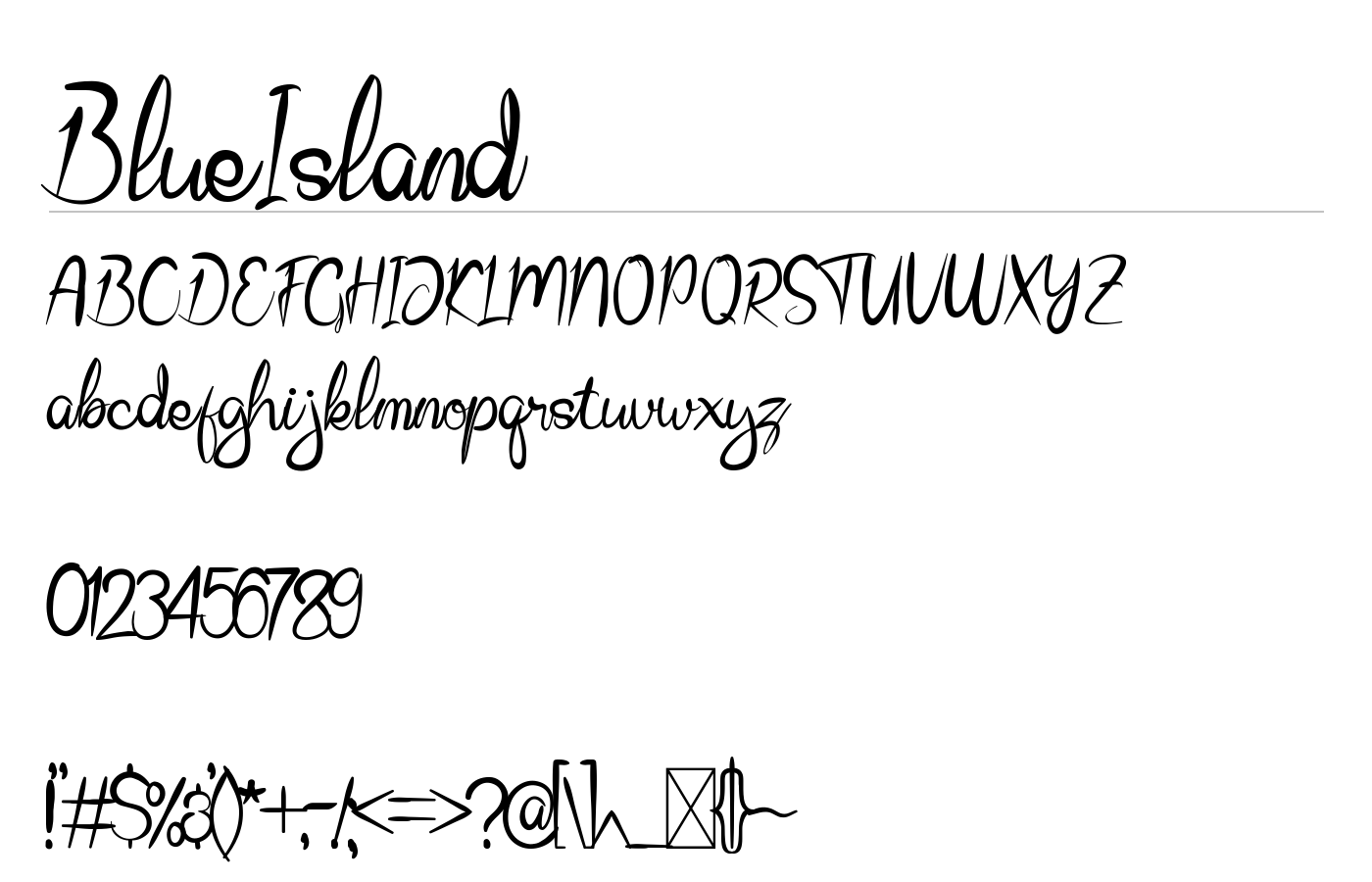
BlueIsland is a playful and artistic script font with a tall x-height and a handwritten feel that combines elegance with casual charm. Its slender, slightly irregular strokes and unique letterforms give it a distinctive, expressive personality perfect for creative branding, invitations, and headlines where a personal touch is desired. This font works best in decorative or display roles, adding an approachable yet stylish flair to any design.
BlueIsland Font
About BlueIsland Font